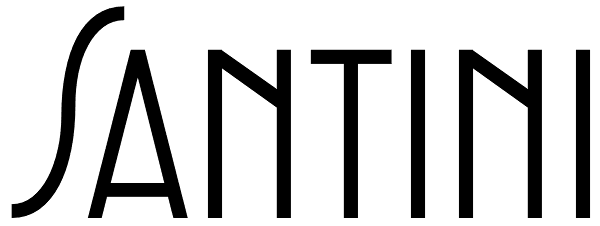
Santini
Santini began as an experiment in mixing historical art deco, art nouveau, arts and crafts, and to a lesser extent Bauhaus sources. Surprised at the pleasant outcome of the experiment, we expanded it to become three weights, and included some...